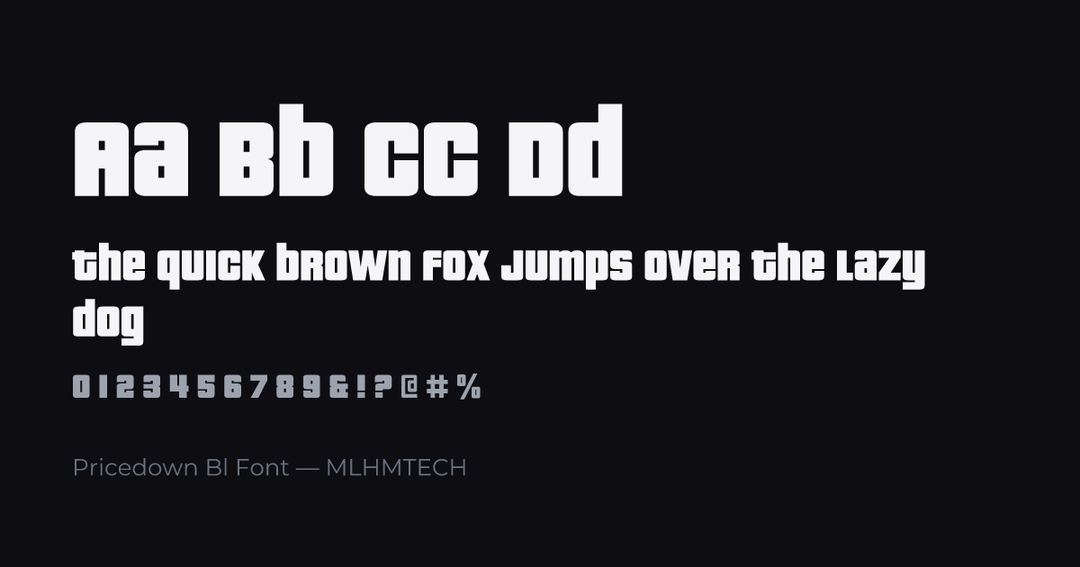
Pricedown Bl Font
Pricedown Bl is a bold, retro display font that adds a vintage gangster movie vibe to your projects. Ideal for titles, posters, and branding.
Pricedown Bl is a classic display font known for its heavy, condensed letterforms and vintage character. It evokes the style of old gangster movies and retro advertising, making it a popular choice for titles, posters, and logos.